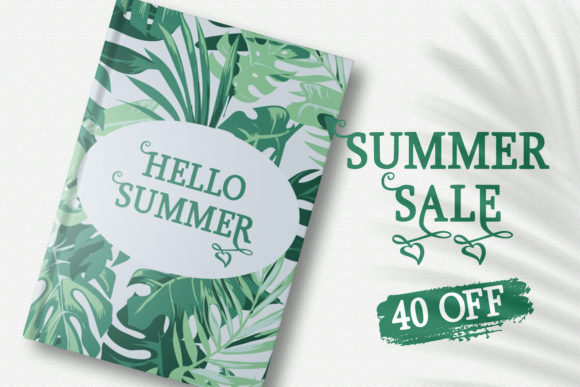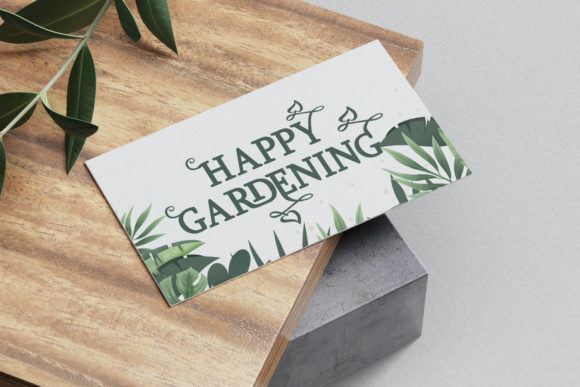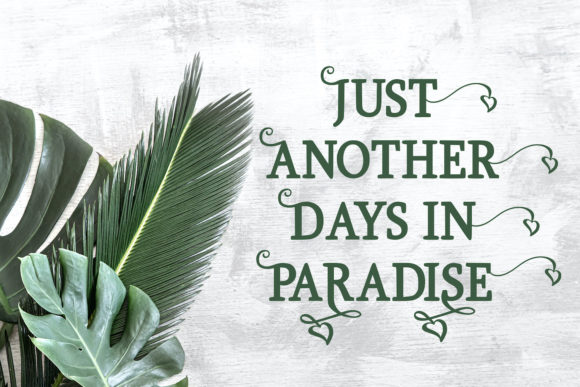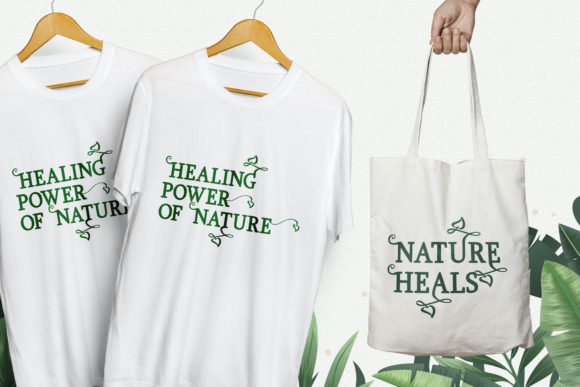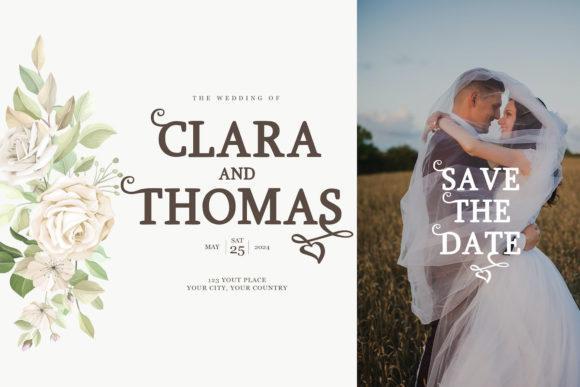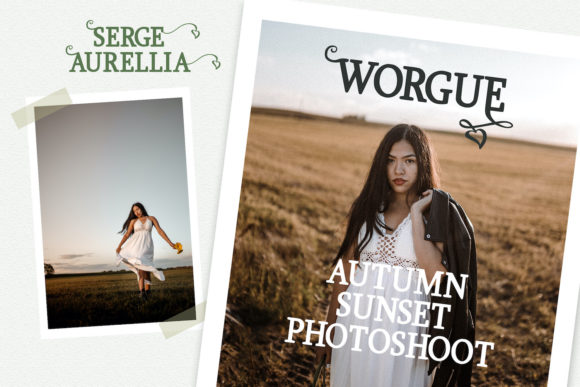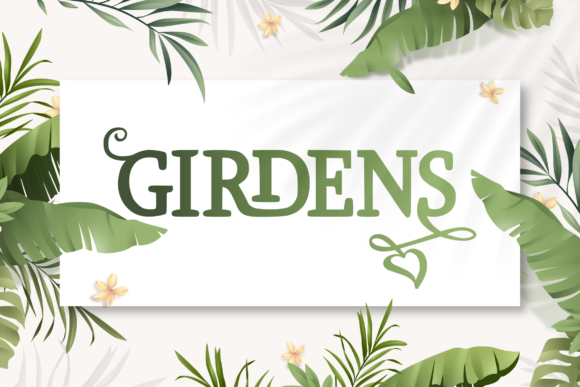
Girdens Font: Elevate Your Designs with Elegance and Modernity
Are you tired of using the same old fonts in your designs? Look no further than Girdens Font, a unique, elegant, and modern serif font that’s sure to take your creations to the next level. With its playful and sophisticated style, Girdens is perfect for designers and crafters looking to add a touch of luxury and refinement to their work.
The Characteristics of Girdens Font
Girdens Font is a serif font, which means it features small lines or flourishes at the ends of the letters. This classic design element adds a level of sophistication and elegance to any text, making it perfect for use in a wide range of contexts, from logos and branding to packaging and advertising.
But what really sets Girdens apart is its unique and modern take on traditional serif fonts. The letters are sleek and streamlined, with clean lines and a sense of fluidity that gives the font a dynamic and playful feel. This makes Girdens perfect for designers who want to create something that’s both timeless and on-trend.
What Makes Girdens Font So Versatile?
One of the things that makes Girdens Font so special is its incredible versatility. Whether you’re designing a logo, a brochure, or a website, Girdens is sure to look truly outstanding. Here are just a few examples of the many contexts in which Girdens can be used:
- Logos and branding: Girdens is perfect for creating elegant and sophisticated logos that will help your brand stand out from the crowd.
- Packaging: Whether you’re designing labels for food, cosmetics, or other products, Girdens is a great choice for adding a touch of luxury and refinement.
- Advertising: Girdens is a great font for use in print and digital ads, where its clean lines and sophisticated style can help grab the attention of potential customers.
- Web design: Girdens is also a great choice for web design, where its modern and playful style can help create a unique and engaging user experience.
Why Designers and Crafters Love Girdens Font
So why do designers and crafters love Girdens Font so much? Here are just a few reasons:
- Elegance: Girdens is a truly elegant font that adds a touch of sophistication to any design.
- Modernity: Despite its classic serif design, Girdens has a modern and playful feel that’s perfect for designers who want to create something fresh and on-trend.
- Versatility: Girdens is incredibly versatile, making it perfect for use in a wide range of contexts.
- Easy to read: Despite its elegant and sophisticated style, Girdens is also incredibly easy to read, making it perfect for use in body text and other applications where readability is key.
How to Use Girdens Font in Your Designs
Using Girdens Font in your designs is easy. Here are a few tips to get you started:
- Pair it with other fonts: Girdens looks great when paired with other fonts, such as sans-serif fonts or script fonts.
- Experiment with different sizes: Girdens can be used at a wide range of sizes, from large headings to small body text.
- Play with color: Girdens looks great in a wide range of colors, from classic black and white to bold and bright hues.
In conclusion, Girdens Font is a unique, elegant, and modern serif font that’s perfect for designers and crafters looking to add a touch of luxury and refinement to their work. With its playful and sophisticated style, Girdens is sure to look truly outstanding in a wide range of contexts. Whether you’re designing a logo, a brochure, or a website, Girdens is a great choice for anyone who wants to create something truly special.